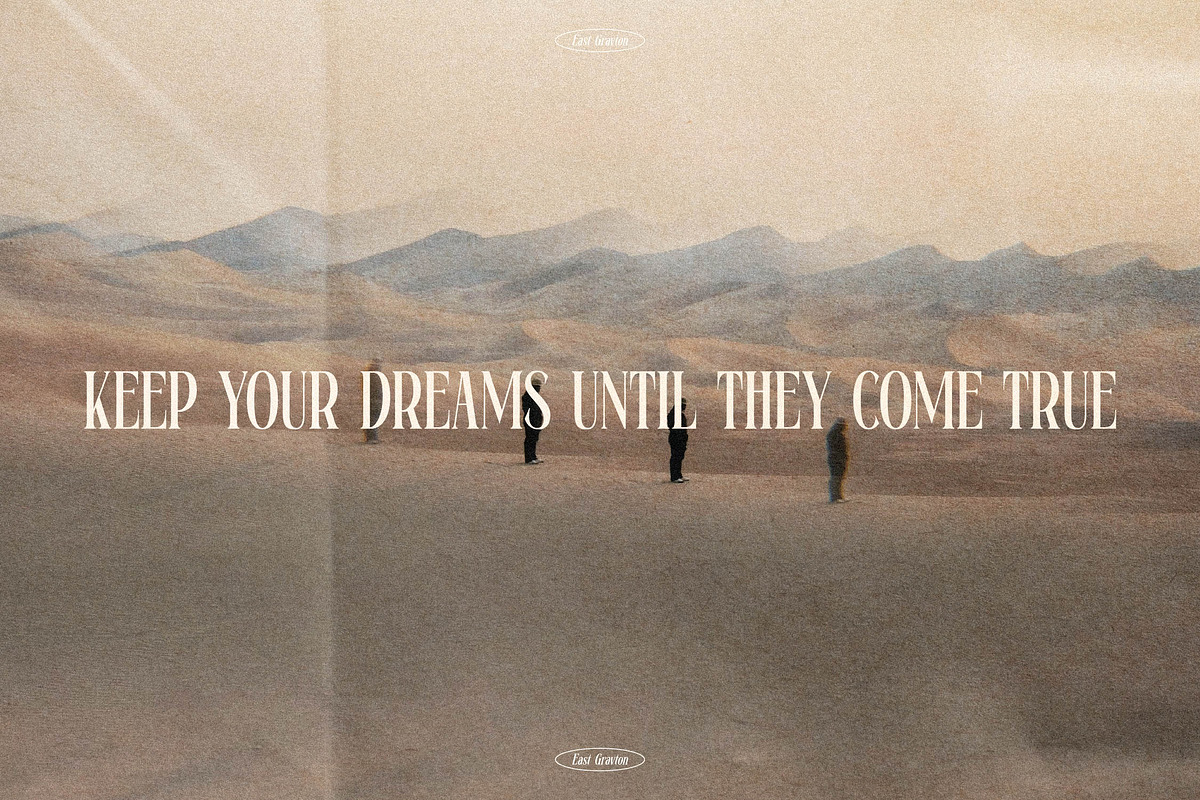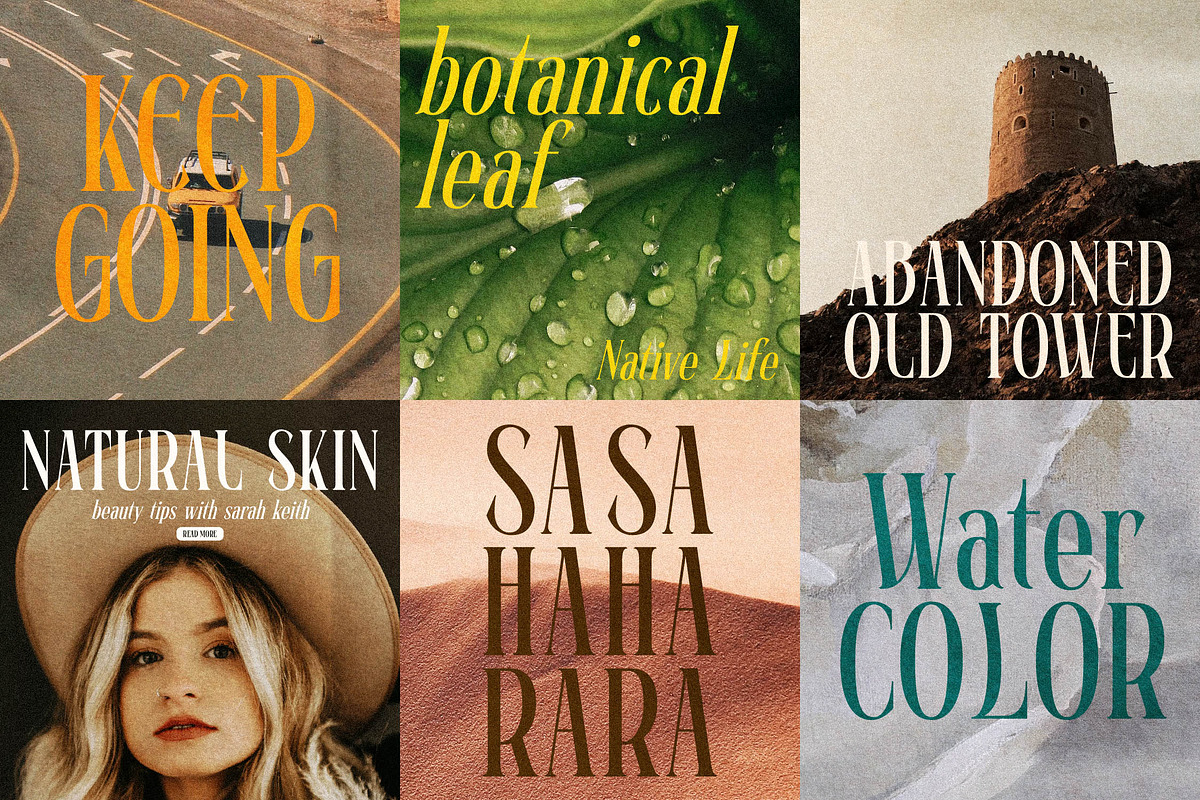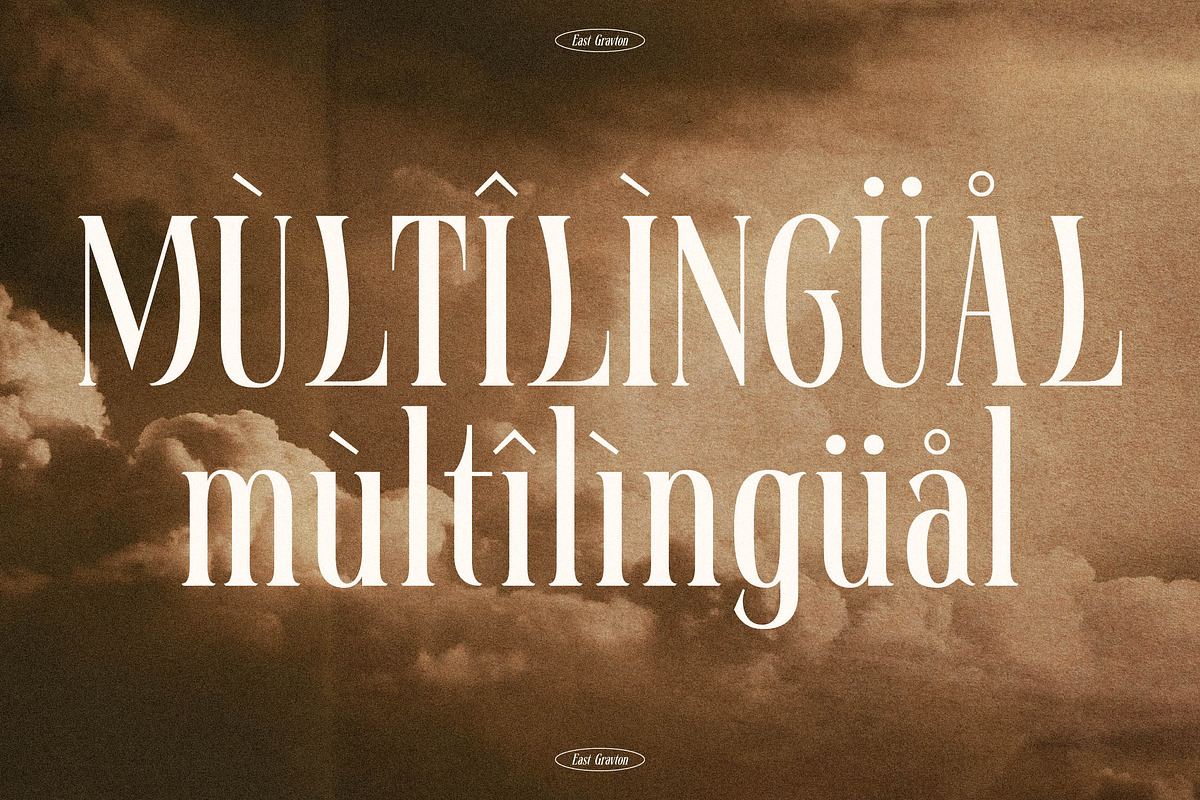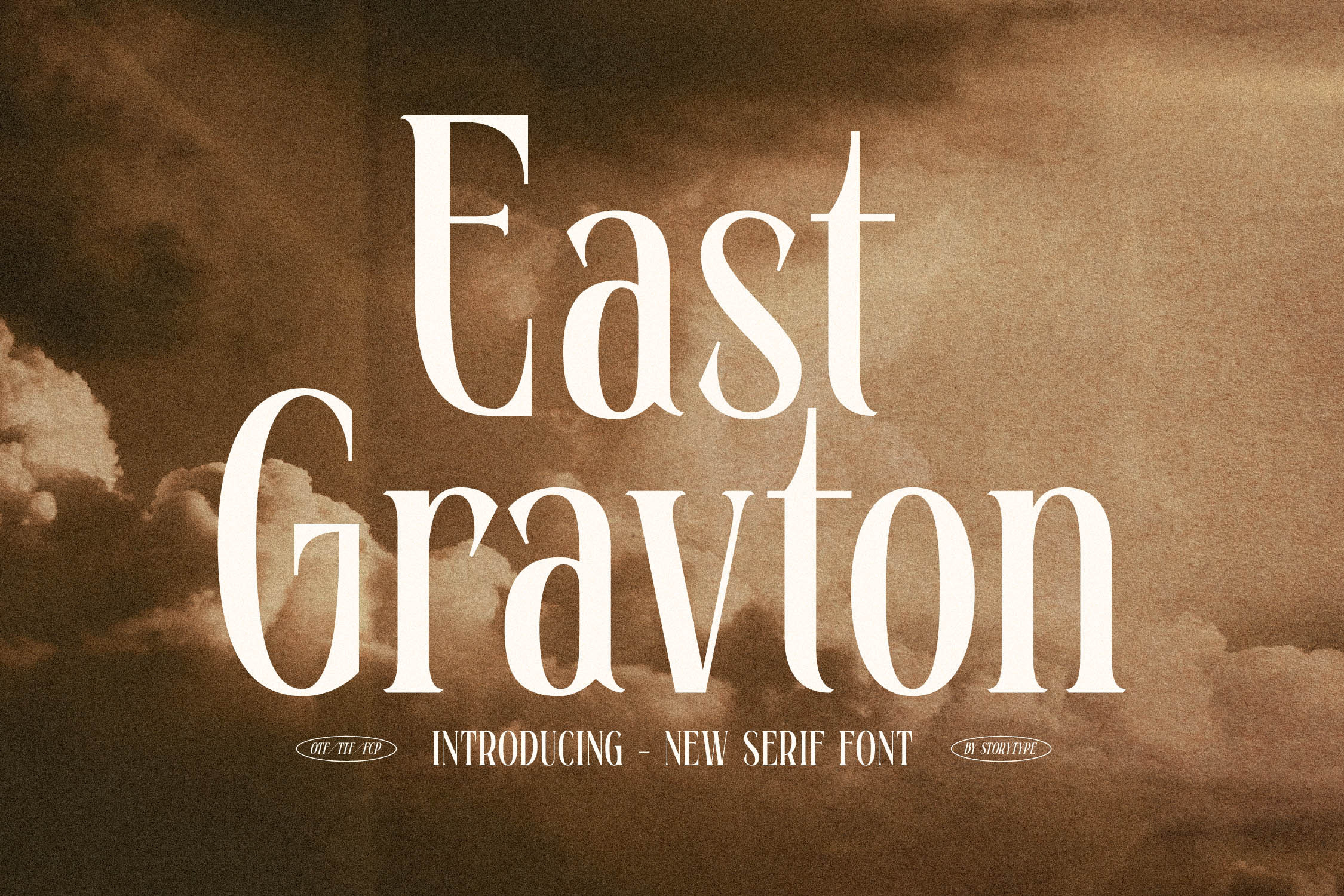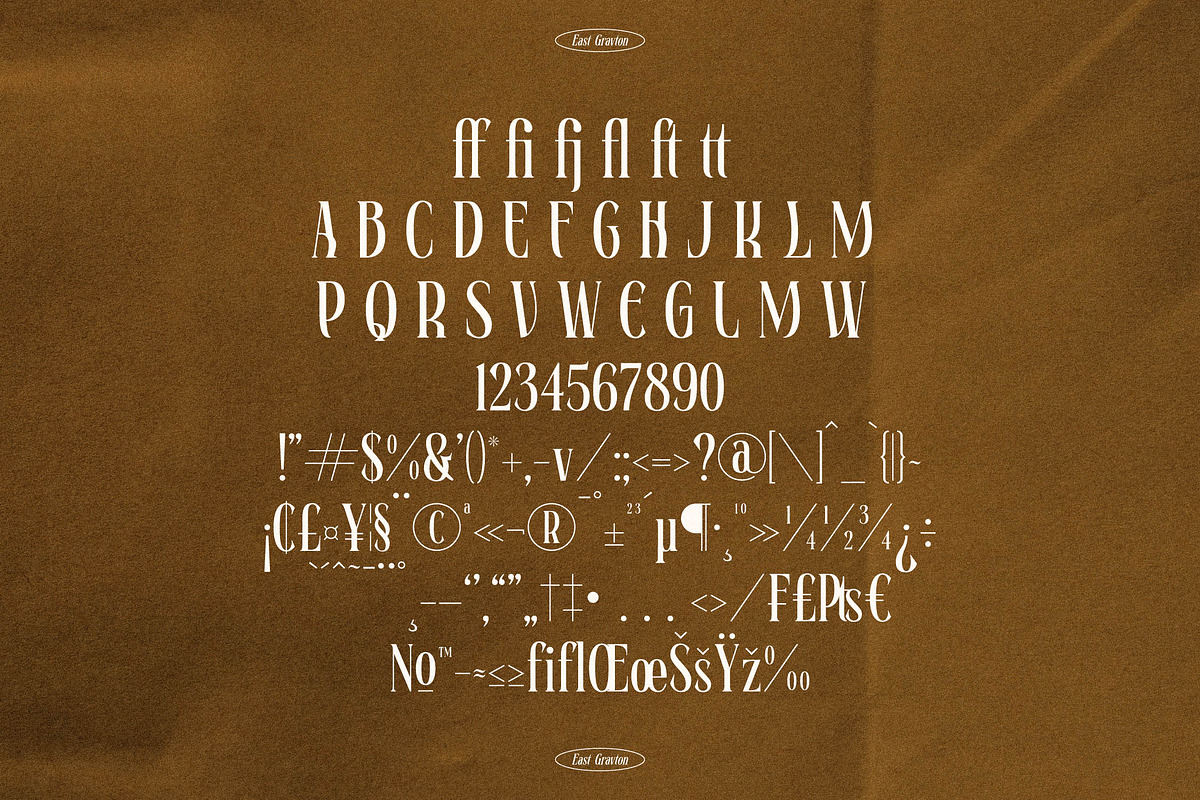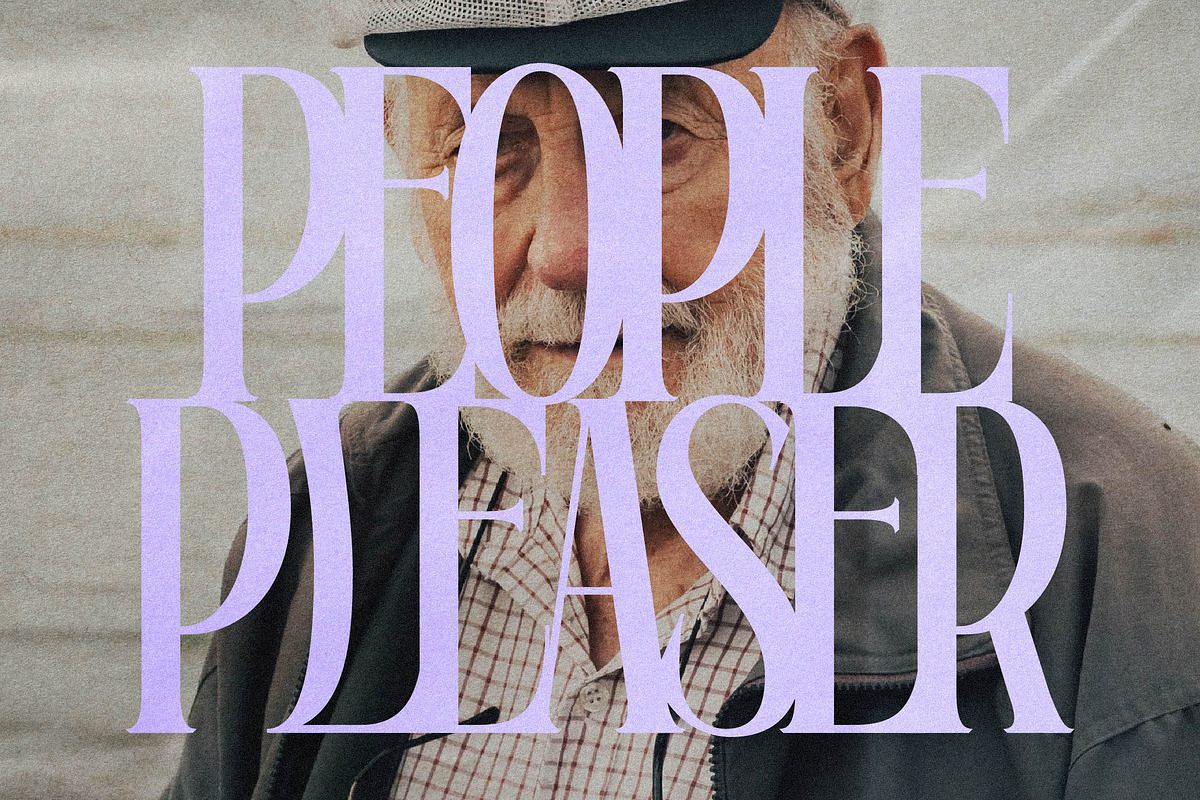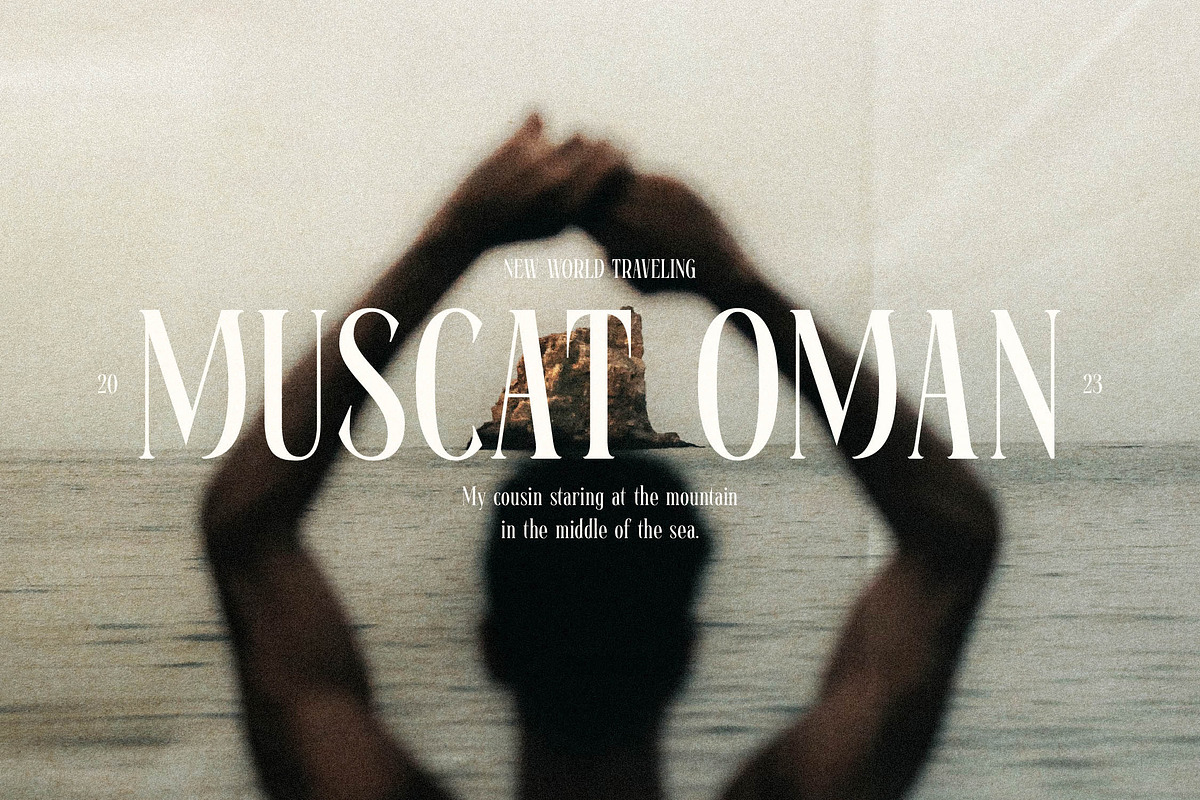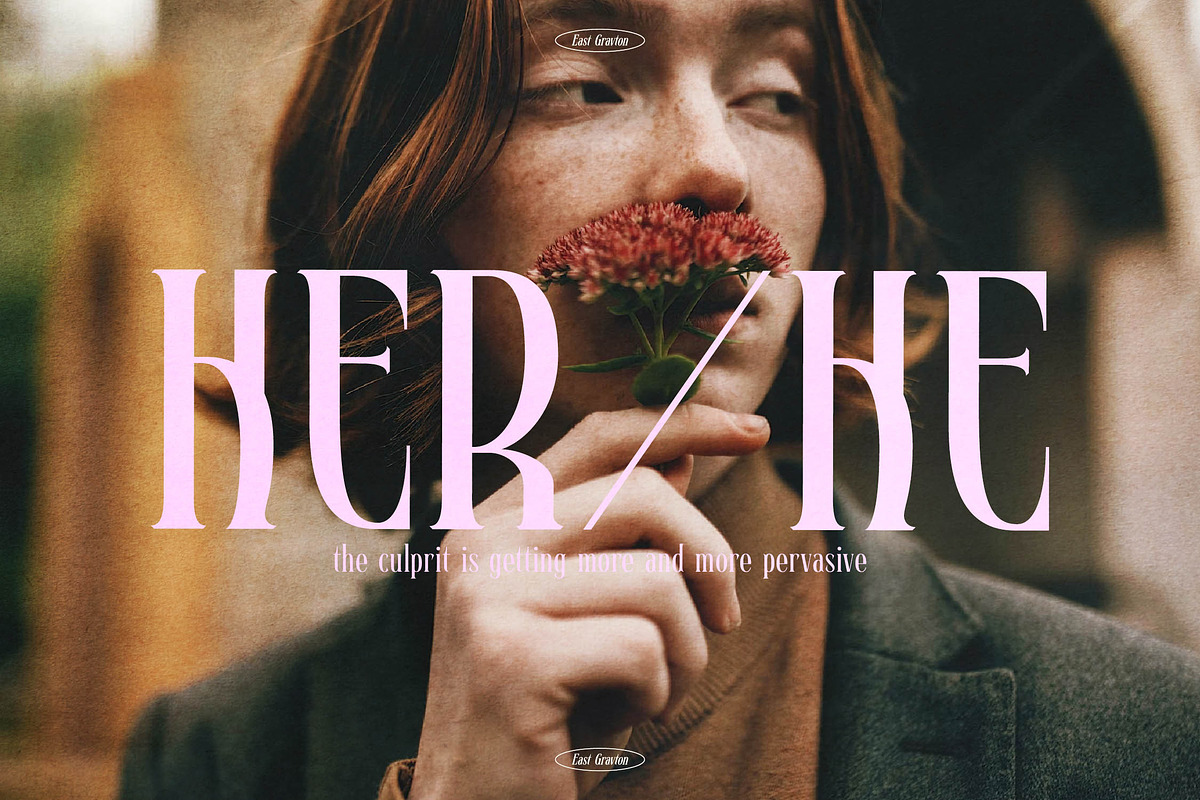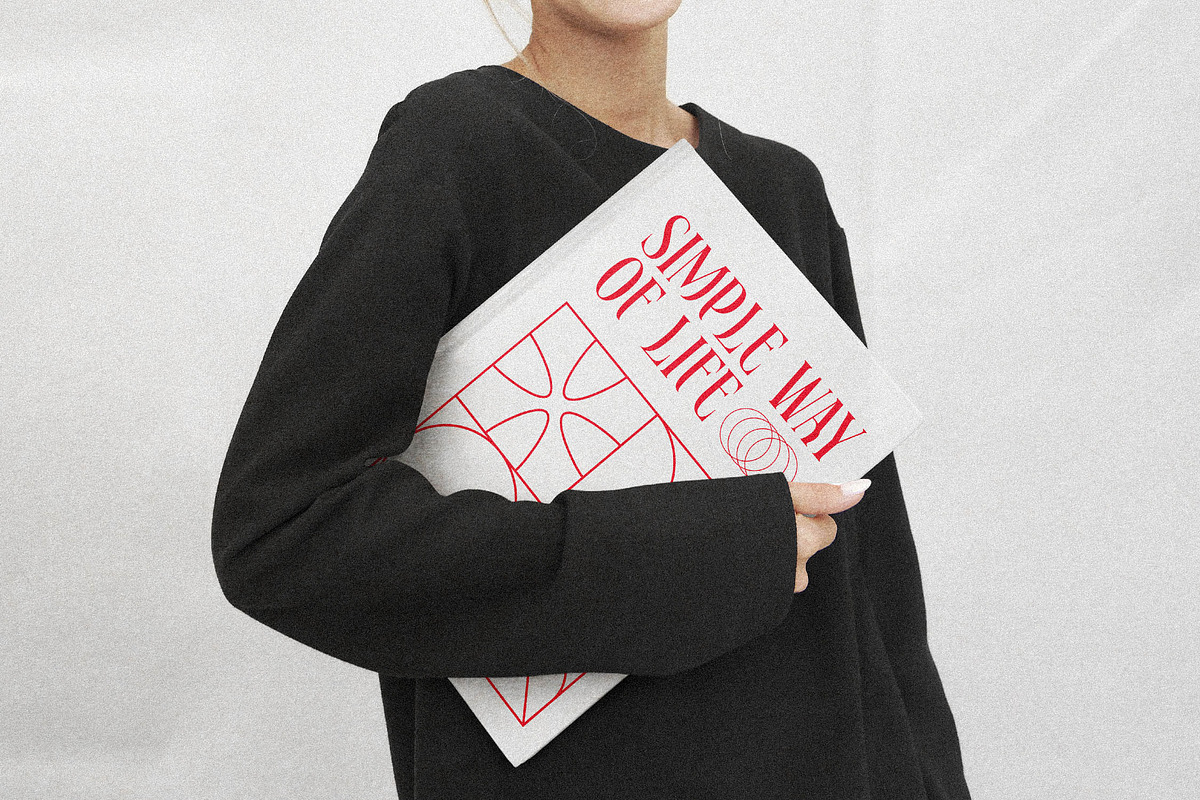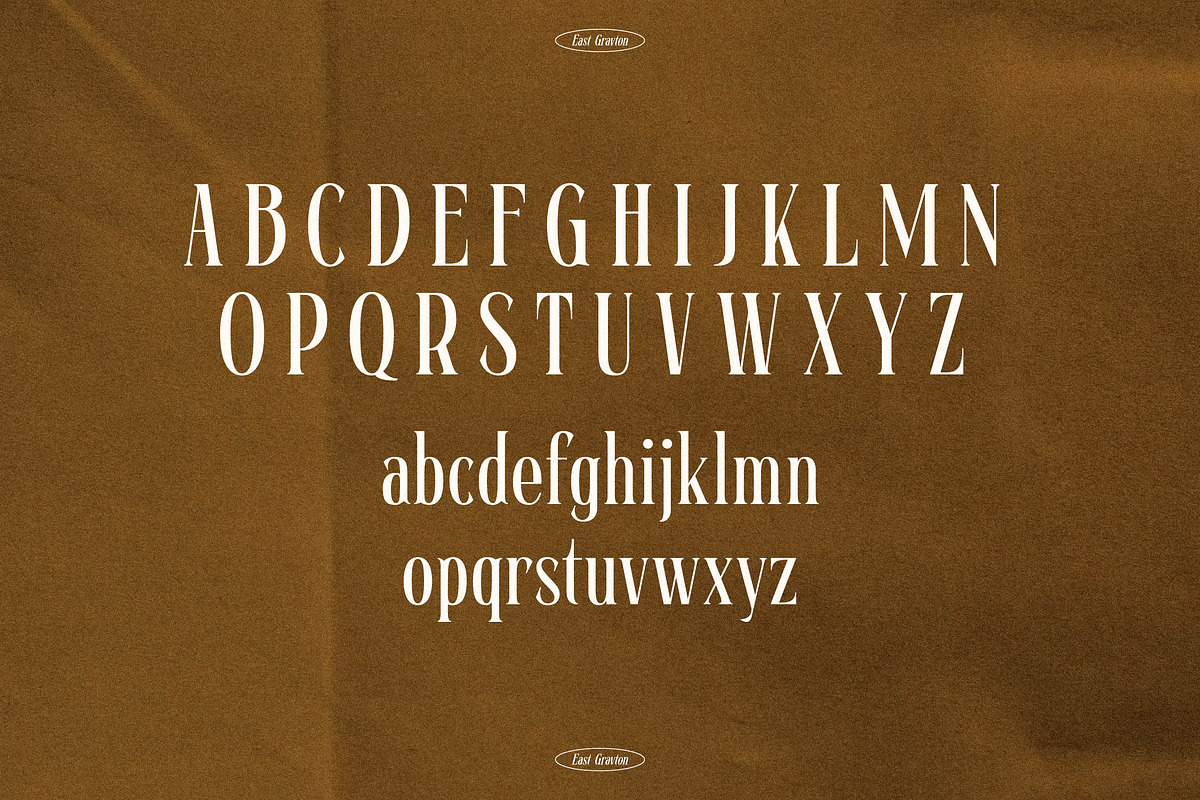
East Gravton New Serif Font
Proudly present East Gravton , created by Storytype, A serif modern and classic typeface that has own unique style & modern look. This typeface is perfect for an elegant & luxury logo, book or movie title design, fashion brand, magazine, clothes, lettering, quotes, and so much more.